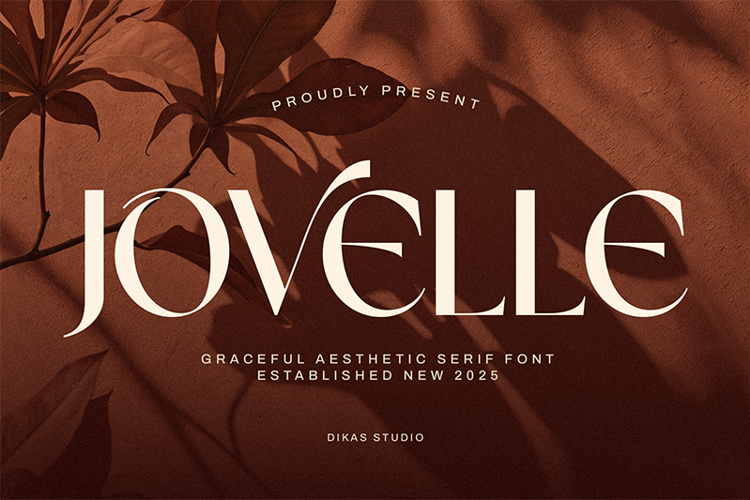
Jovelle - Font
Introducing Jovelle – a refined sans serif font crafted to embody elegance, aesthetics, and luxury in every curve. With its clean yet graceful form, Jovelle exudes sophistication, making it a perfect choice for fashion logos, beauty salons, wedding brands, and upscale designs.